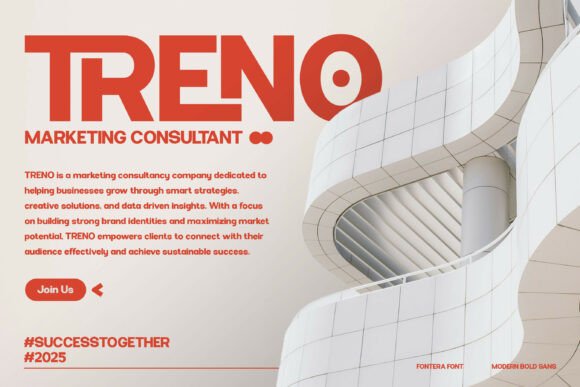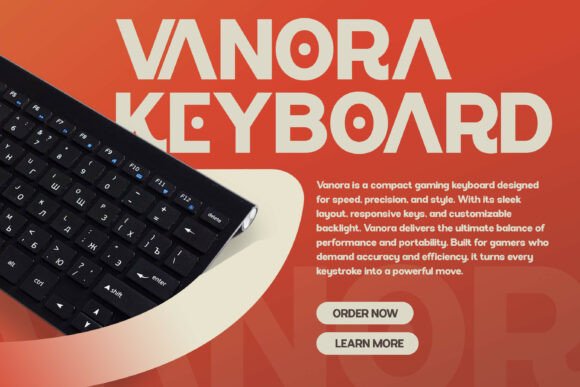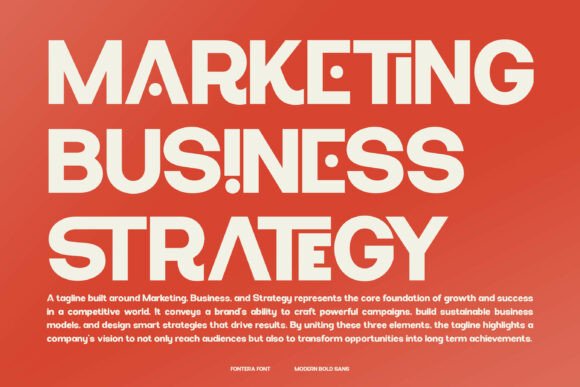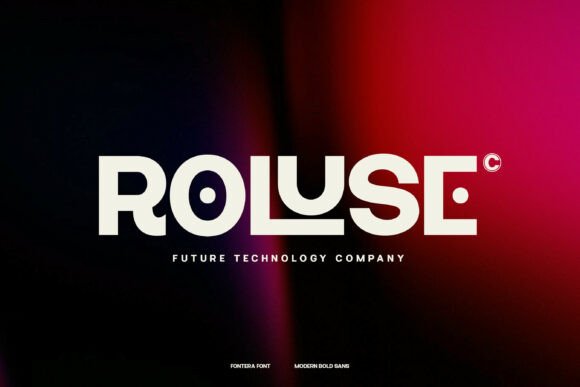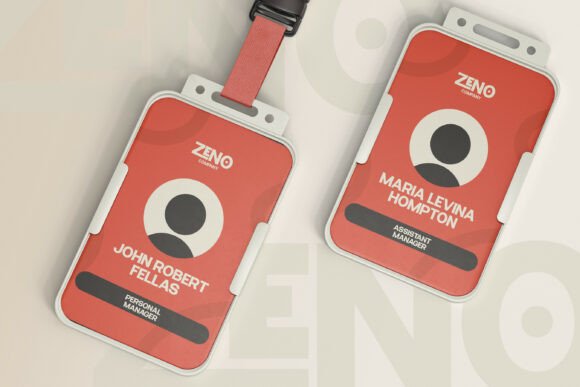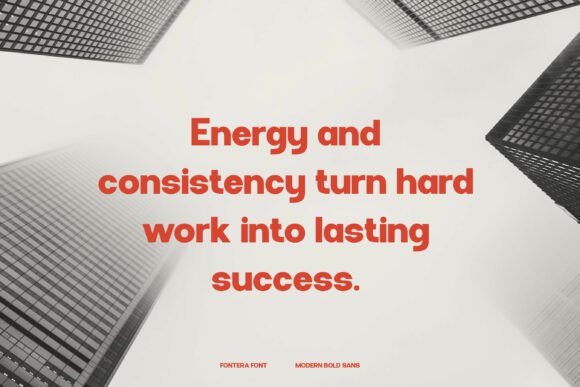
The Power of Fonera Font: A Designer’s New Best Friend
I still remember the project like it was yesterday. I was working on a branding campaign for a trendy new coffee shop, and I was determined to create a bold, eye-catching logo that would stand out in a crowded market. But, as I scrolled through my font library, I just couldn’t find the right fit. That was when I stumbled upon Fonera Font, a modern bold sans serif typeface that instantly caught my attention. With its strong geometric structure, sharp edges, and clean lines, Fonera delivers a powerful visual impact that’s perfect for contemporary branding.
An Honest Review: The Good and the Quirks
So, what do I love about Fonera Font? 🤔 Here are a few highlights:
- ✨ Confidence booster: Fonera’s bold design makes it perfect for headlines, logos, and posters that need to command attention.
- ✅ Clean and versatile: Its geometric structure and clean lines make it suitable for a wide range of design projects, from digital interfaces to print materials.
- 💡 Easy to read: Despite its boldness, Fonera remains surprisingly legible, even at smaller font sizes.
Of course, no font is perfect, and Fonera has a few quirks to keep in mind:
- ⚠️ Limited italic options: Fonera’s bold design doesn’t lend itself well to italic styles, which might limit its use in certain projects.
- 🤔 Glyph limitations: While Fonera has a decent range of glyphs, it might not have every special character or symbol you need.
The Story Behind Fonera Font
While the true story behind Fonera’s creation remains a mystery, it’s easy to imagine a designer inspired by the clean lines and geometric shapes of modern architecture. Perhaps they wanted to create a font that would bring a sense of confidence and style to any design project. Whatever the inspiration, Fonera is undoubtedly a font that’s here to make a statement.
| What makes Fonera Font so special? | Fonera’s unique blend of geometric structure, sharp edges, and clean lines makes it perfect for contemporary branding and design projects. |
| Is Fonera suitable for body text? | While Fonera is bold and eye-catching, it may not be the best choice for body text due to its size and legibility. However, it’s perfect for headlines, logos, and titles. |